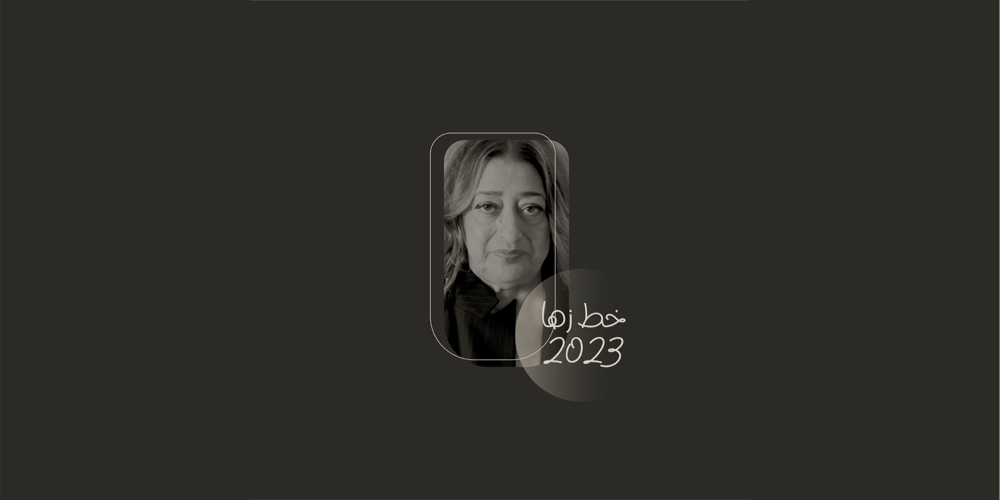
KA Zaha Font Family was designed by Osama A Ruzaiq and published by Kasheda Type. KA Zaha contains 4 styles and family package options. “zaha” is a digital font that transcends the boundaries between handwritten charm and advanced technological design. It embodies the artistry of handwriting, capturing the essence of creativity and uniqueness. The font is characterized by smooth lines and flexible design, with soft endings that add an artistic touch to each character.With a range of weights, “Razan” allows users full control over the thickness of the font, enhancing its versatility in various designs. Whether used for large headlines or small text, it shines with seamless and comfortable readability. Its unique allure gives the impression of carefully handcrafted characters, contributing a special and individualized touch to any artistic project or design.